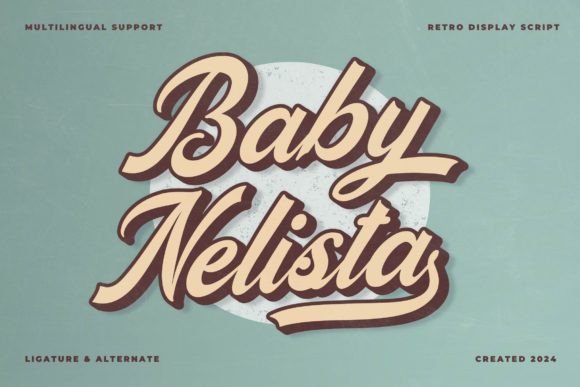
The Retro Charm of Baby Nelista Font: A Designer’s Delight
I’ll never forget the time I was working on a vintage-themed poster project, and I just couldn’t find the right font to capture that nostalgic vibe. My client wanted something that would transport their audience back to the good old days, but I was stuck. That’s when I stumbled upon Baby Nelista Font, and it was love at first sight! 💕
Baby Nelista is a fun and playful retro-style script font that has a curvy, bold design that feels vintage, like old signs or ads. The letters flow smoothly, making it great for creating eye-catching designs with a nostalgic vibe. Perfect for posters, logos, or anything that needs a touch of retro charm!
- ✨ The curvy, bold design is perfect for creating eye-catching designs
- ✅ The font has a smooth flow, making it easy to read and visually appealing
- 🎉 It’s perfect for creating vintage-themed designs, from posters to logos
- 👍 The font is highly versatile and can be used for both digital and print projects
- 🤔 Some letters may appear a bit too bold or overpowering when used in all caps
- ⚠️ The font may not be suitable for very small font sizes, as it can become difficult to read
Baby Nelista Font comes with a range of OpenType features and glyphs that can enhance your designs. Here are a few tips on how to access and use them:
Baby Nelista Font was inspired by the vintage signs and ads of the past. The designer wanted to create a font that would capture the essence of a bygone era, while still being modern and versatile. The result is a font that’s perfect for creating eye-catching designs with a nostalgic vibe.
| Font Name | Baby Nelista Font |
| Author | Denustudios |
Q: What is Baby Nelista Font?
A: Baby Nelista Font is a fun and playful retro-style script font that’s perfect for creating eye-catching designs with a nostalgic vibe.
Q: Is Baby Nelista Font suitable for digital use?
A: Yes, Baby Nelista Font is highly versatile and can be used for both digital and print projects.